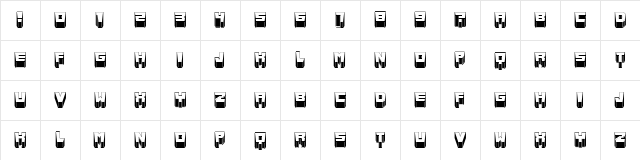
Metallic Sharp Regular
Design Context for Metallic Sharp Typeface
Metallic Sharp is a composed and adaptable typeface that performs quietly and consistently across a wide range of design contexts.